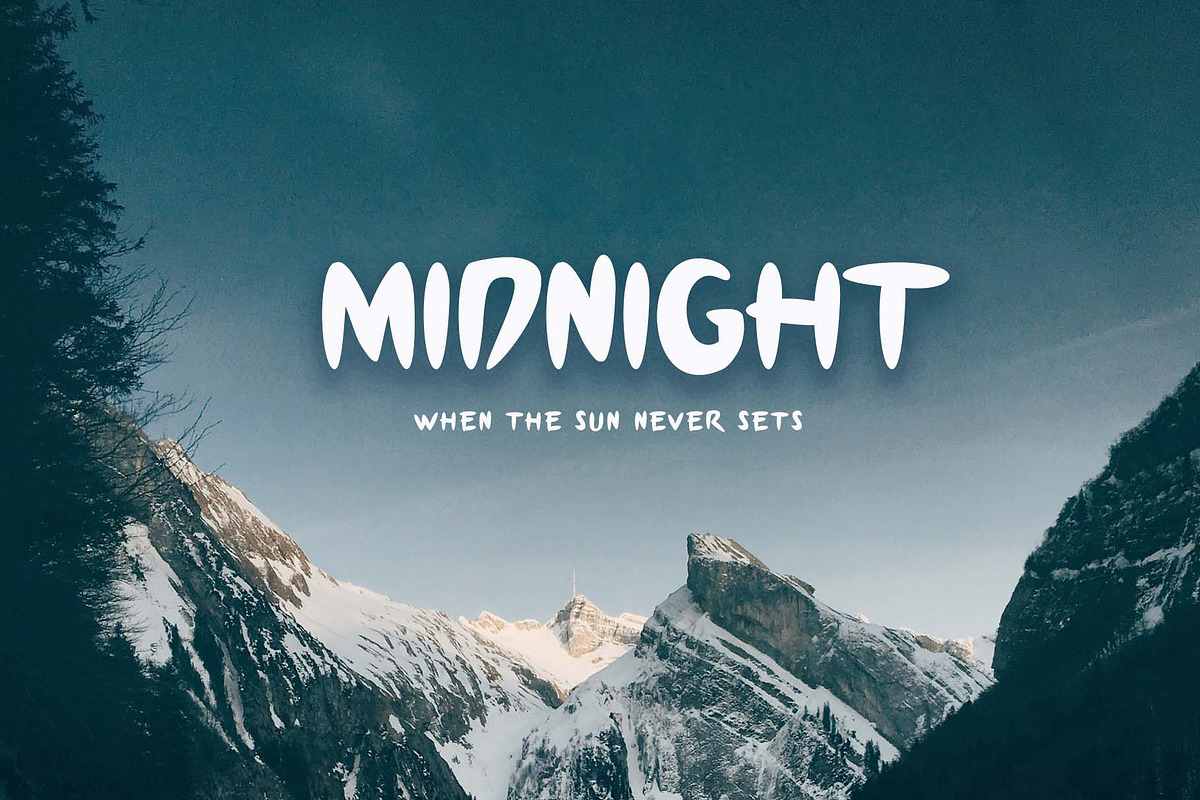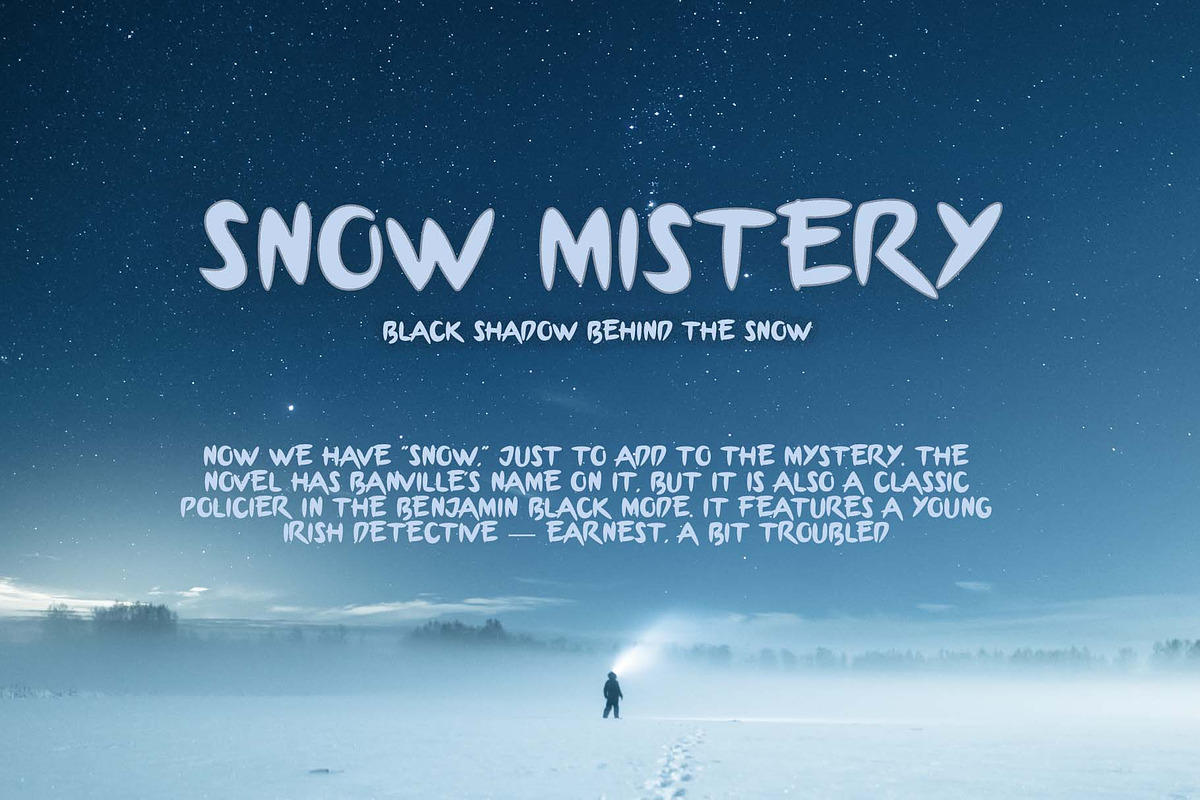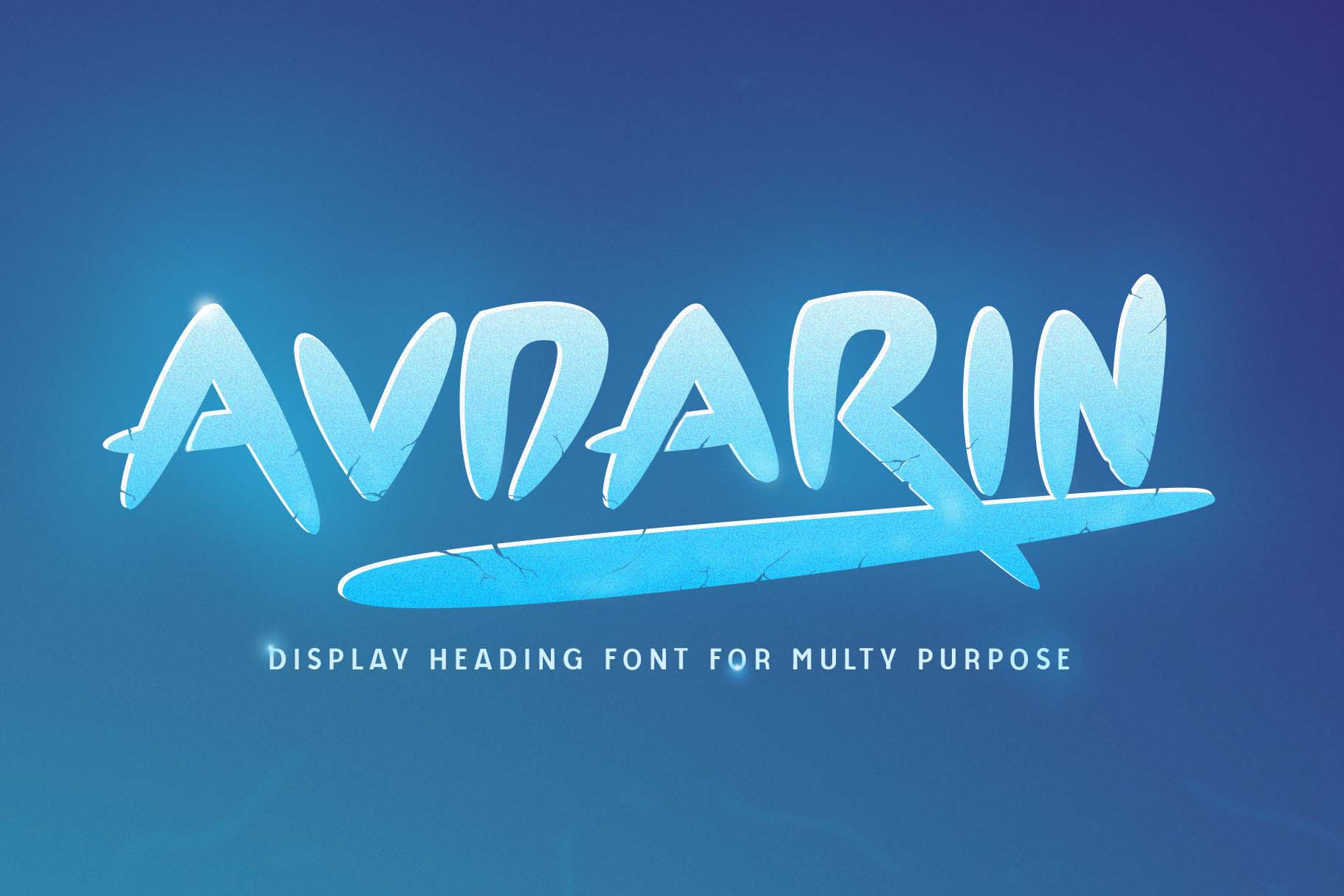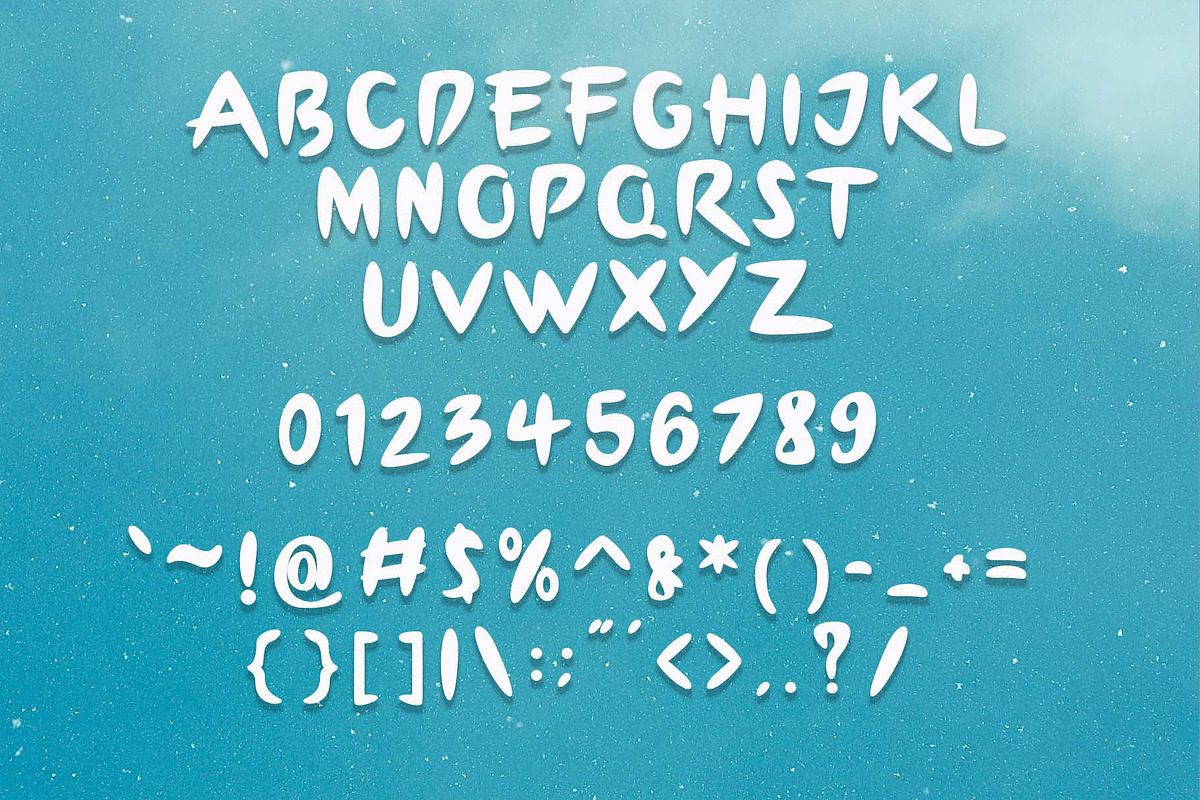
Avdarin - Display Font
Introducing Avdarin, a unique, modern, and simple display font. So perfect for you who needs a typeface for logo designs, magazine, social media, brochure, and many more.